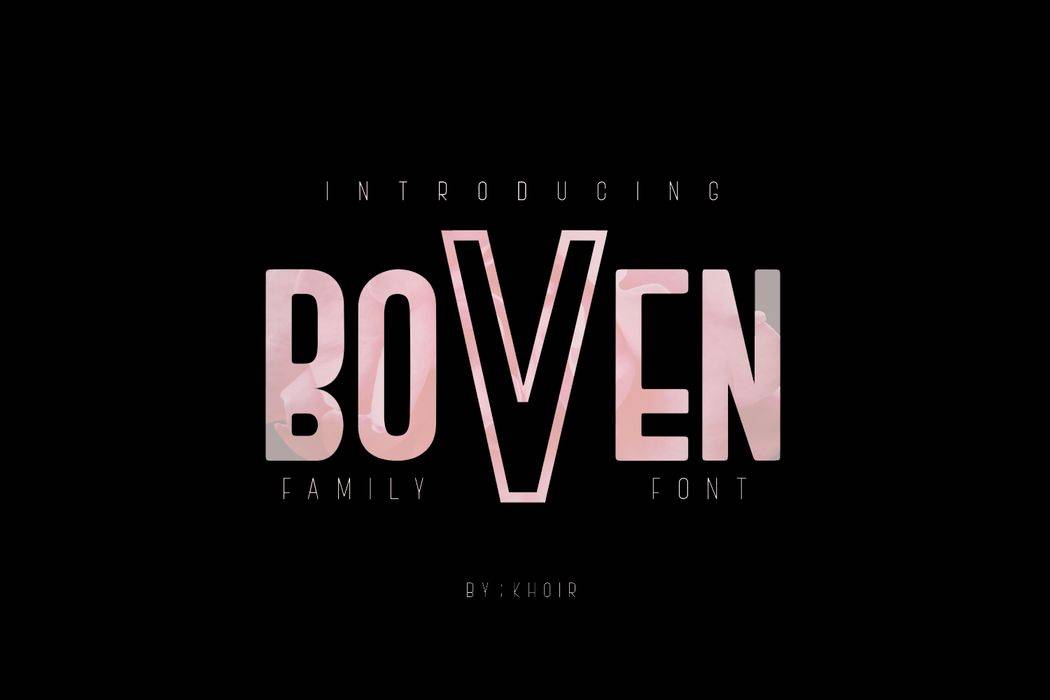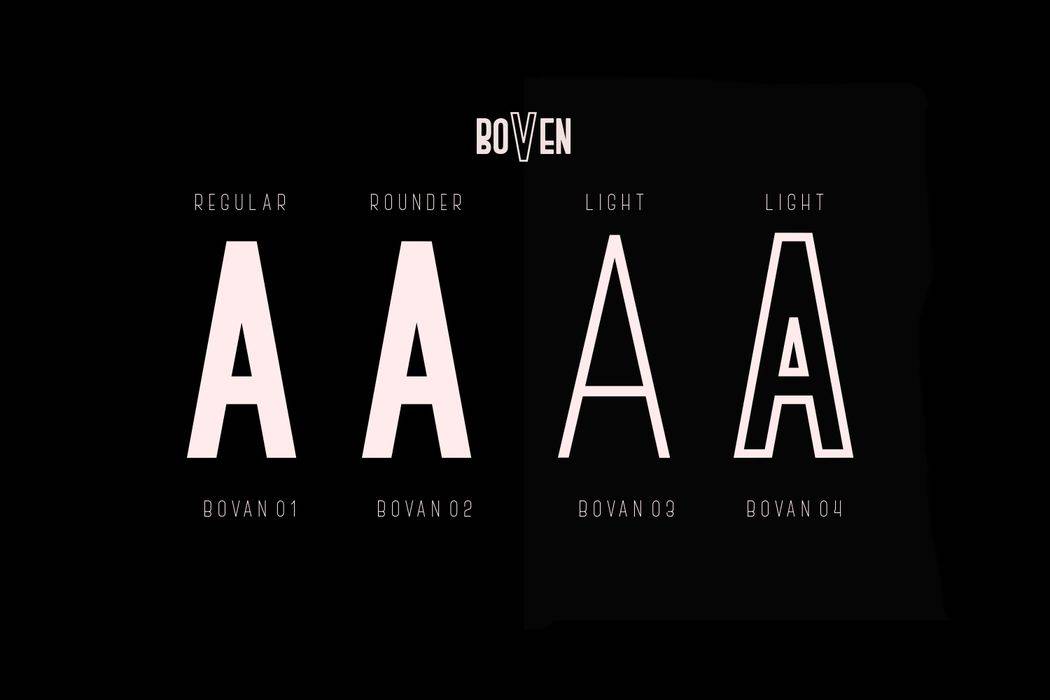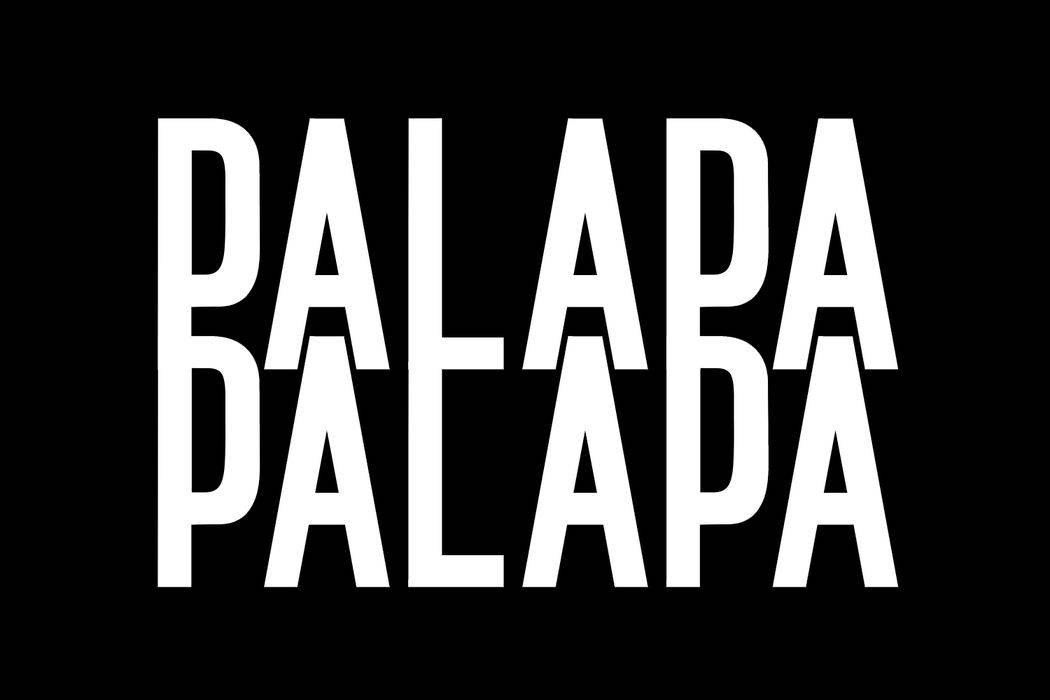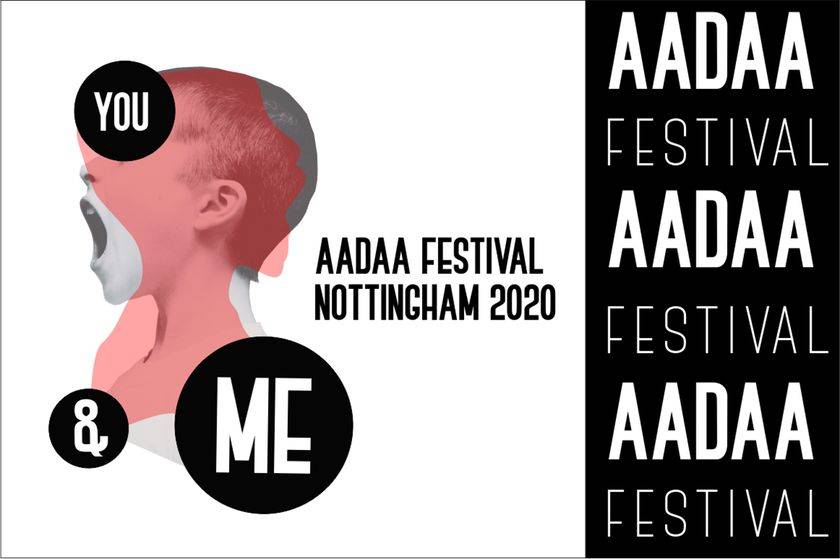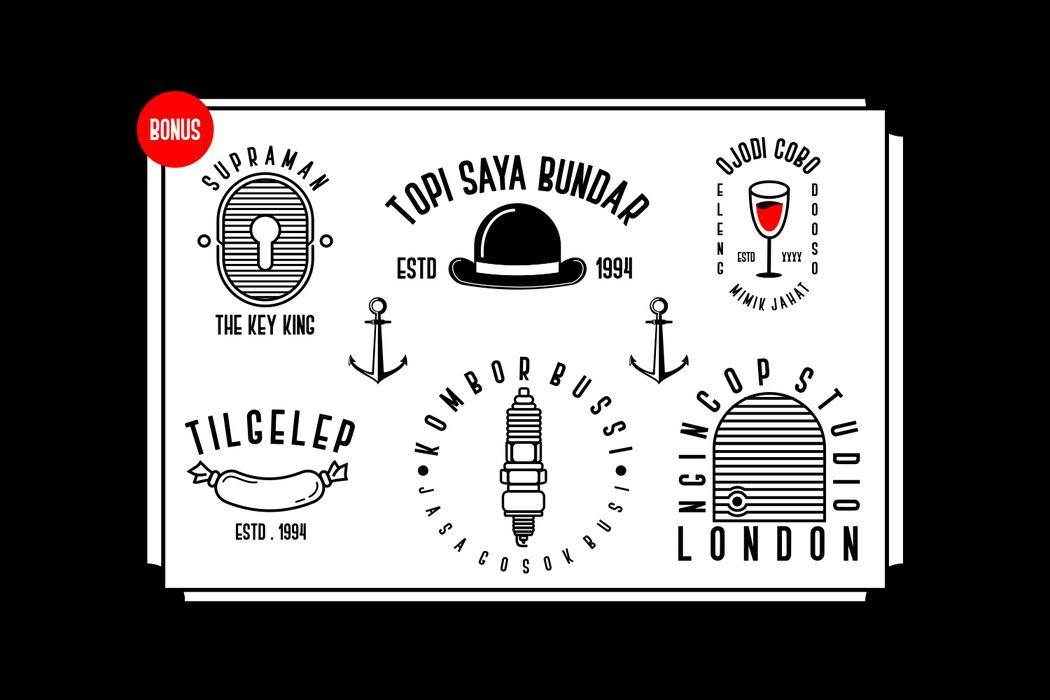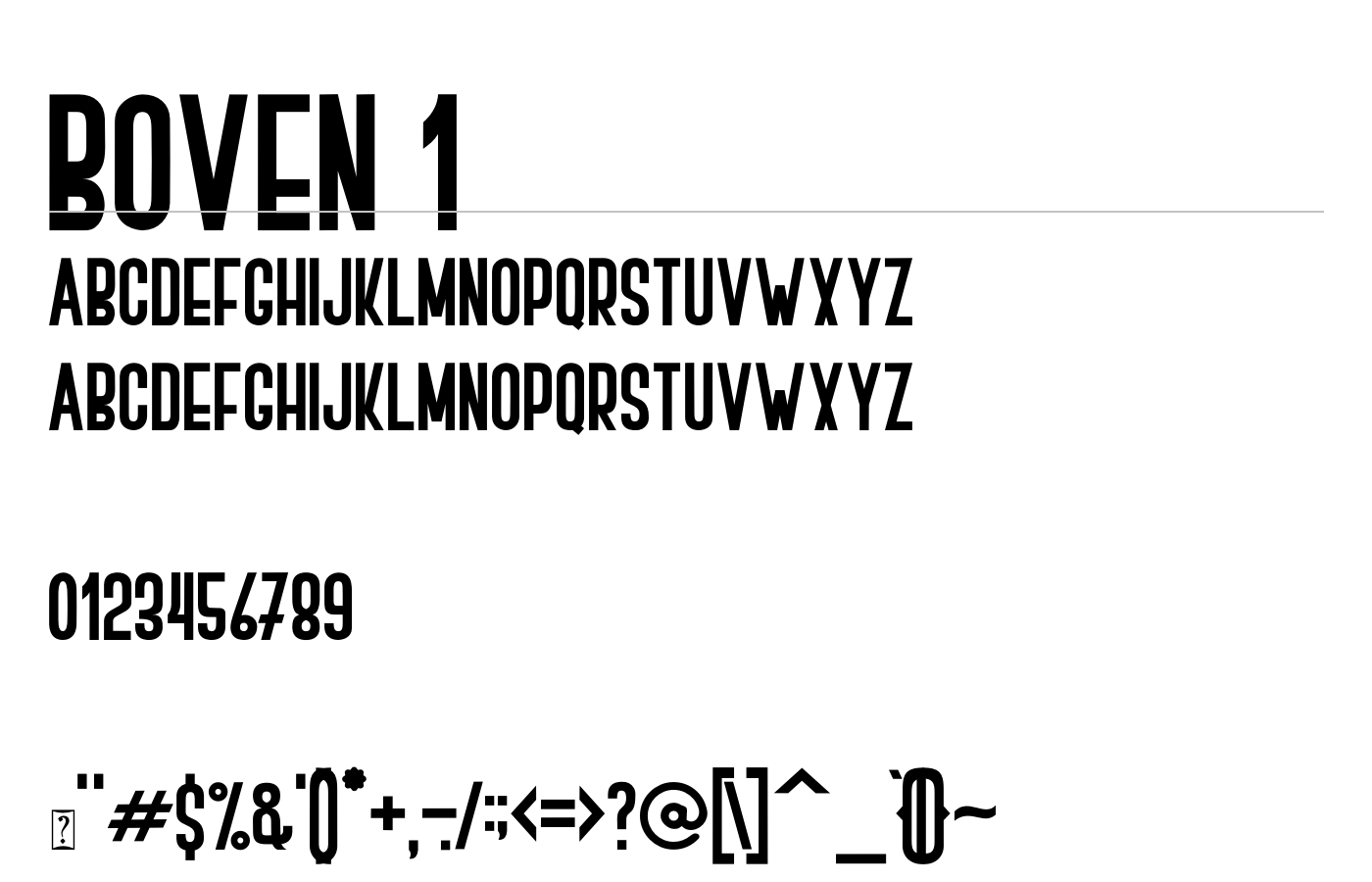
Boven is a bold, condensed sans serif font with a modern, commanding presence. Its tall, narrow letterforms and high contrast in strokes make it ideal for impactful headlines and striking logo designs, conveying confidence and urban sophistication. This font works well in editorial layouts, posters, and branding where a strong, attention-grabbing style is needed.
Boven Font
About Boven Font
| Font family | Boven Font |
| Designer | Muhammad Romzul Khoir |